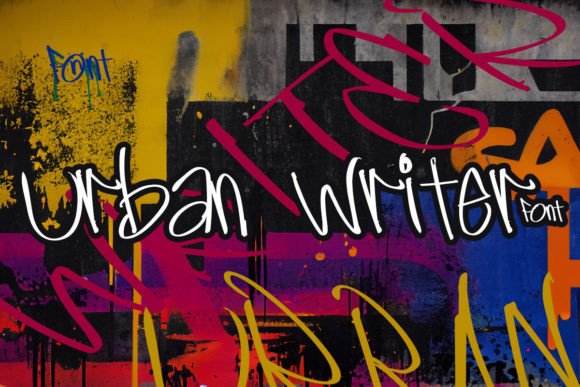
**Introducing Urban Writer Font: The Ultimate Font for Unleashing Your Urban Style**
Prepare yourself to create captivating designs that ooze with the swagger of the urban streets with the Urban Writer Font. This dynamic script font, meticulously crafted by the talented Annex, is your gateway to expressing your unique style and leaving an unforgettable mark on the world.
Step into the realm of graffiti artistry with this font, designed to effortlessly capture the essence of urban culture. Its free-flowing strokes and edgy character will infuse your designs with an undeniable streetwise vibe, making them stand out from the crowd.
**Why Choose Urban Writer Font?**
- **Unleash Your Inner Artist:** Embody the spirit of urban artists and let your creativity flow freely. Urban Writer Font empowers you to bring your visions to life with its authentic graffiti style.
- **Make a Statement:** Bold, eye-catching, and utterly unforgettable, this font commands attention and makes a powerful statement. Your designs will resonate with those who embrace the urban aesthetic.
- **Perfect for Hipster Projects:** Infuse your hipster-inspired creations with the perfect touch of urban flair. Urban Writer Font's inherent cool factor will elevate your designs to the next level.
- **Endless Design Possibilities:** From posters and flyers to social media graphics and apparel, Urban Writer Font's versatility knows no bounds. It seamlessly adapts to any design project, adding a touch of urban edge.